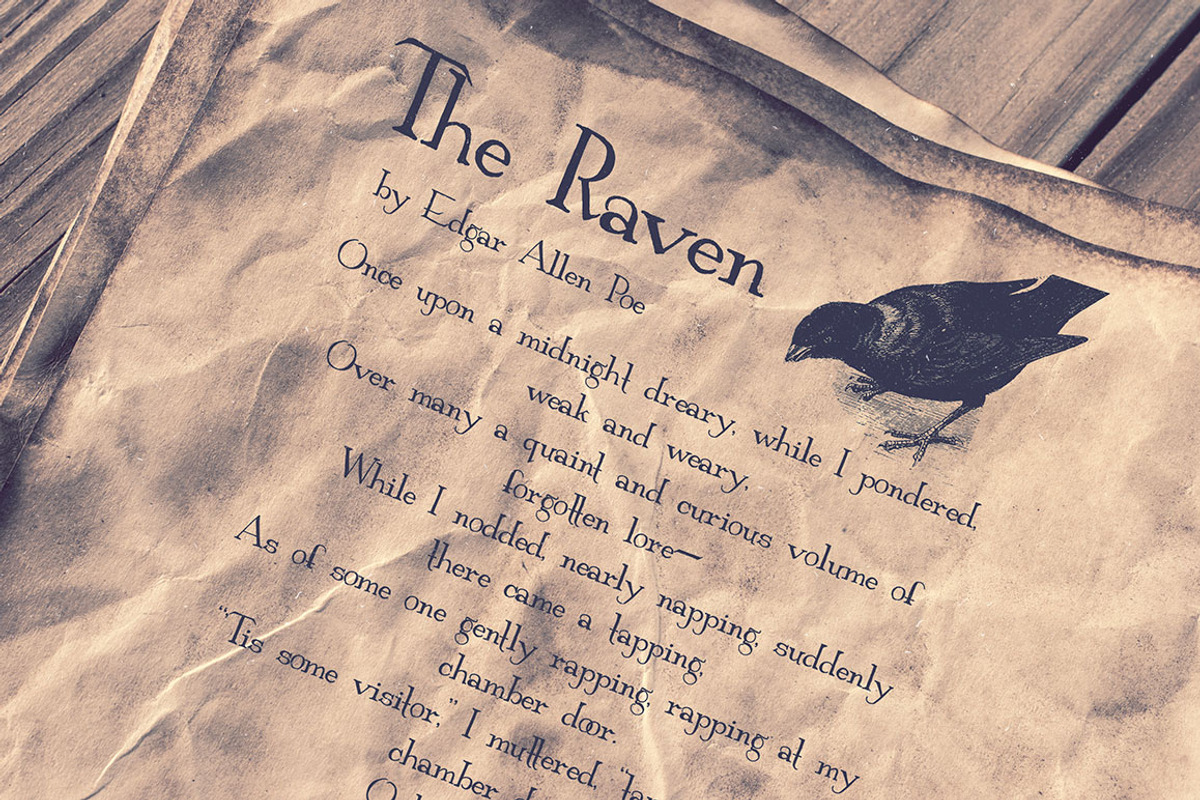
Ravenly Hand Written Font
Ravenly Hand Written Font by Eclectic Anthology is a font selected for branding, posters, packaging, typography.
Why Ravenly Hand Written Font is worth a look
Ravenly Hand Written Font by Eclectic Anthology fits naturally into Branding, posters, packaging, typography.